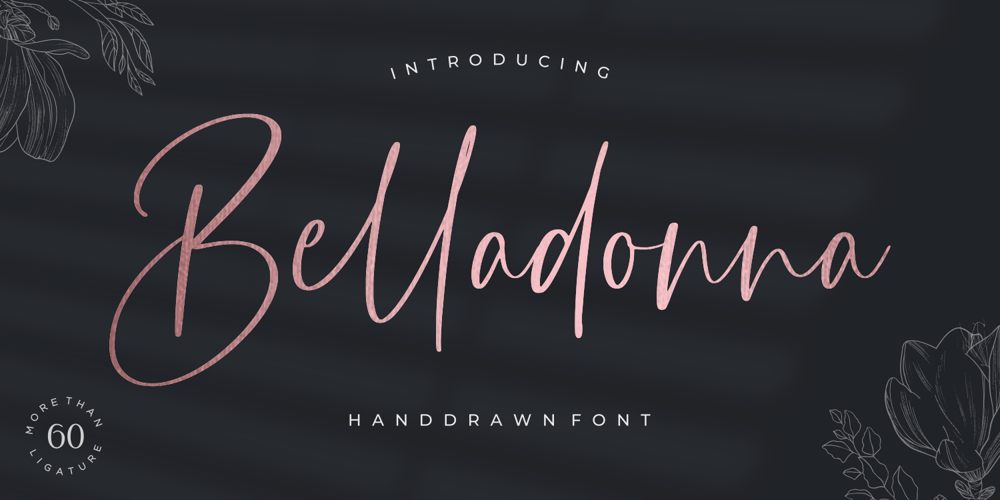
Belladonna
Belladonna font
Belladonna Font Family was designed by Andre Bima Falah Rabbani and published by Atharuah Studios. Belladonna contains 1 styles and family package options. Introducing Belladonna! A stylish hand-drawn script font. Carefully designed to display natural and flawless writing. Belladonna is also supported by the addition of 61 ligatures to display an authentic and elegant quality.With this font, you can beautify your various projects. Such as stylish branding & logos, packaging, handwritten quotes, merchandising, advertising, etc.That’s it! I hope you enjoy it.Feel free to comment if there are issues or queries.You can also say hello to me on Instagram: https://www.instagram.com/atharuah_Thank You!